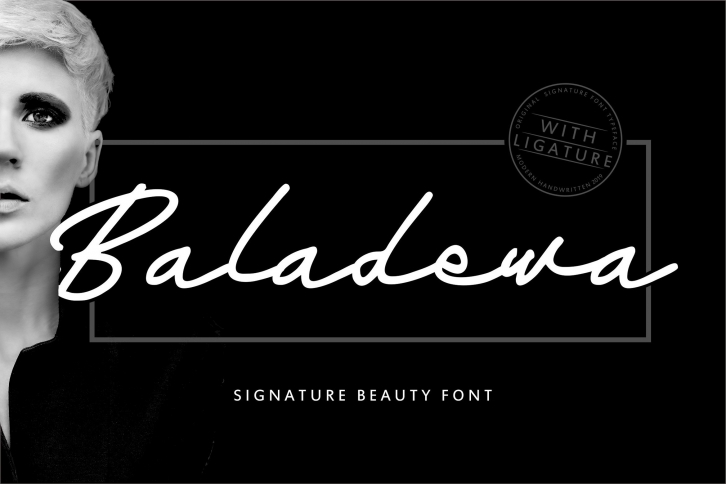
Baladewa | Signature Beauty Font Download
Baladewa is a trendy and unique font with an authentic style. It was designed by Vunira and it's a great choice for creative people who need such a font. It was released on June 13, 2019 and the file size is 19.39 MB. Baladewa will add an organic vibe to any design idea!